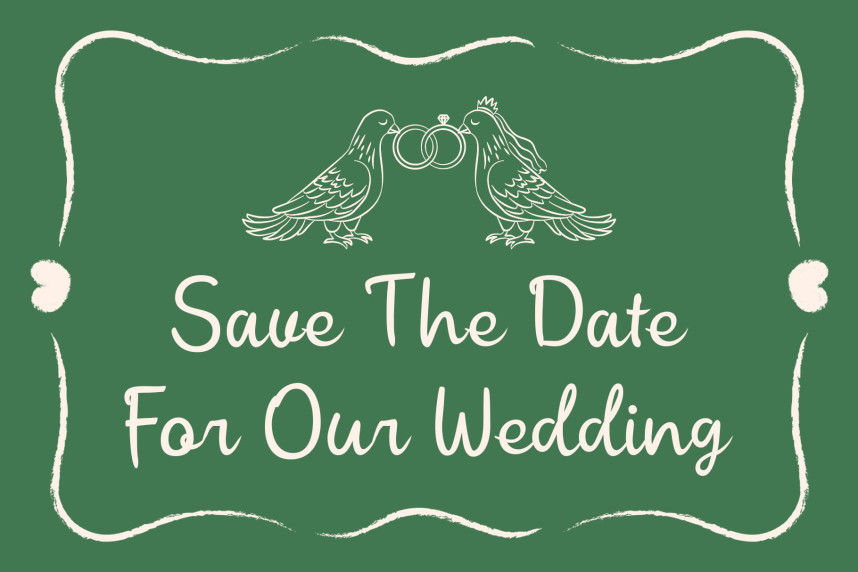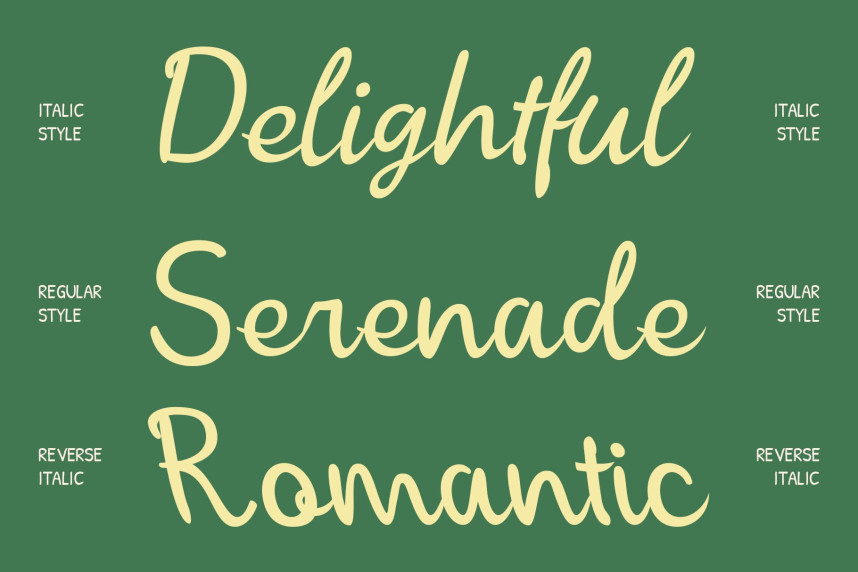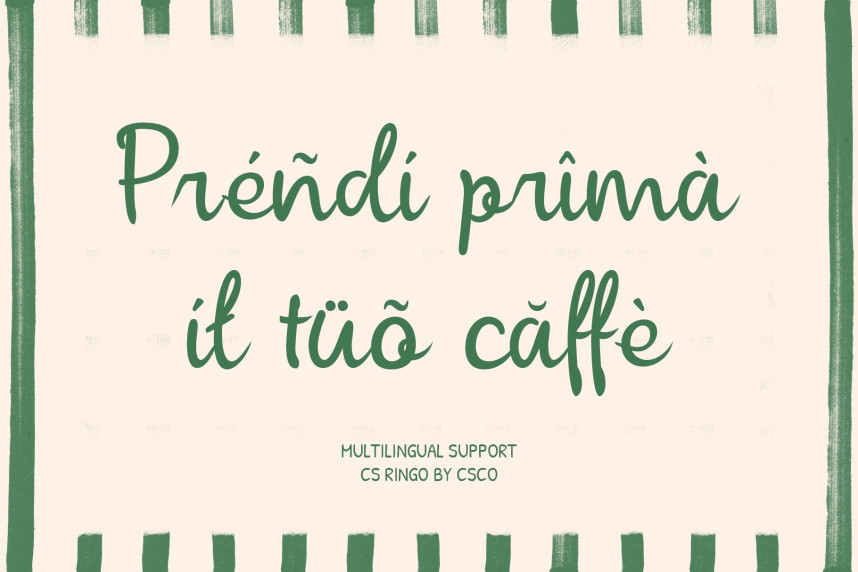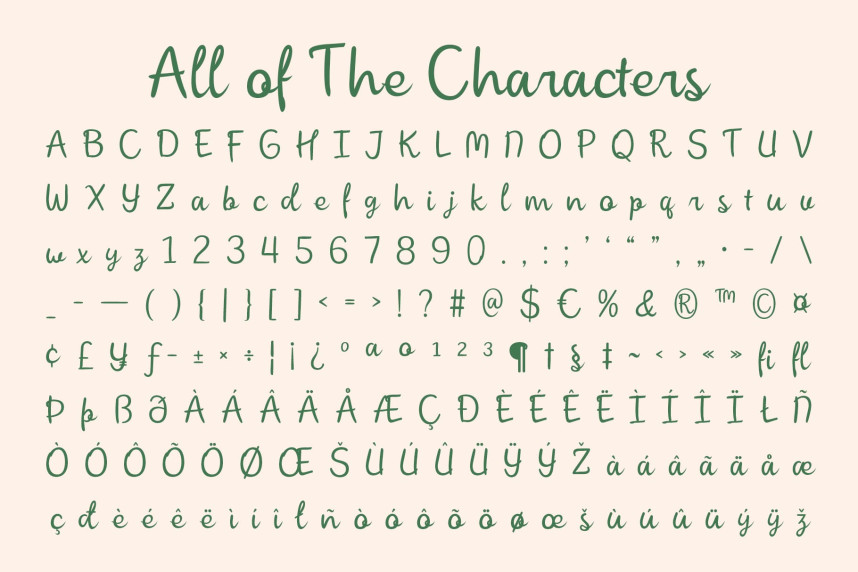
CS Ringo Font
CS Ringo Font is a script font crafted with elegance and feminine charm. Its flowing strokes and refined details create a natural handwritten look that feels both personal and sophisticated. The font is designed to add warmth and beauty to any project, making it an essential choice for designers who value stylish, timeless typography.
Whimsical Handwriting Character
With its whimsical character and fluid handwriting style, CS Ringo captures the expressive spirit of hand-drawn lettering. Each curve feels organic and graceful, bringing a unique personality that sets it apart from standard script fonts. This quality ensures your designs stand out with a touch of authenticity.
Perfect for Letters and Invitations
CS Ringo shines in intimate and creative contexts. From handwritten letters and romantic postcards to elegant wedding invitations, it communicates Italian elegance with a modern twist. Its charm makes it a natural fit for special occasions and meaningful projects.
Versatile for Branding and Illustration
Beyond stationery, CS Ringo is also ideal for logos, fashion branding, and illustration design. Its ability to balance professionalism with creativity allows it to adapt across industries, giving brands and creatives a refined yet approachable voice.